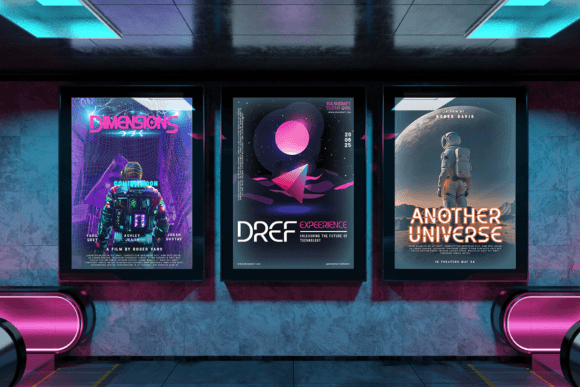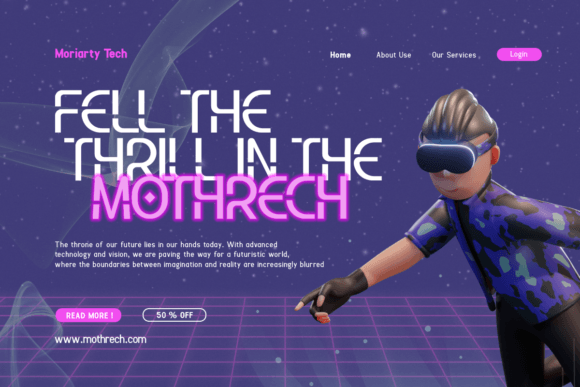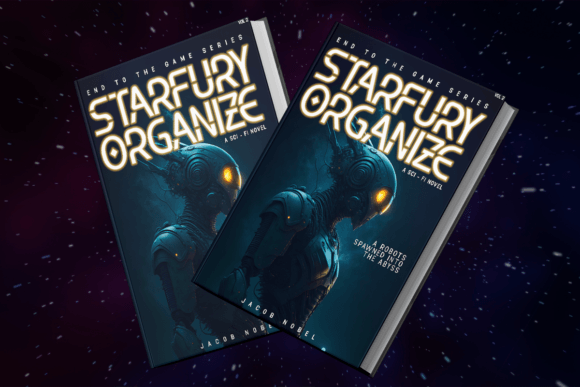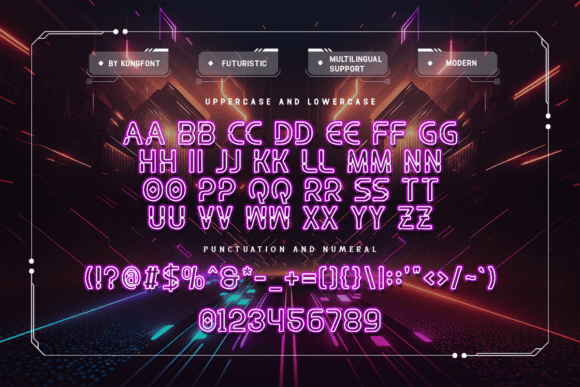
Introduction to Drivergun Font
Have you ever been working on a creative project and suddenly, the perfect font appears, making all the difference in its visual impact? That’s exactly what happened to me when I discovered the Drivergun Font. Its sleek, angular letterforms and dynamic style left me breathless, and I knew I had to share it with the design community.
As a designer, you’re always on the lookout for high-quality design resources that can elevate your work and make it stand out. That’s where the Drivergun Font comes in – a cutting-edge typeface that embodies the essence of modern technology and futuristic design. With its transparent background and free download option, it’s an ideal choice for designers who want to create striking headlines, logos, and visual content that demand attention.
Whether you’re working on a sci-fi poster, gaming graphics, or digital media project, the Drivergun Font is a valuable addition to your design toolkit. Its PUA encoded feature allows you to access all of the cute glyphs and swashes with ease, making it a versatile and powerful design resource.
Key Features of Drivergun Font
- High-quality, professional font designed for creative projects, perfect for use in logos, branding, and other design elements.
- Features a transparent background, allowing for easy layering and customization in various design applications.
- Includes a comprehensive set of glyphs, ensuring that users have access to a wide range of characters and symbols.
- Designed to be highly legible, even at small font sizes, making it ideal for use in digital and print applications.
Honest Review: Drivergun Font
I recently had the chance to work with the Drivergun Font for a creative project, and I must say, it’s been a great experience. The font is a high-quality design resource that can add a unique touch to any project.
- ✨ High-quality design: The font is crisp and clear, making it perfect for both digital and print projects.
- ⚠️ Limited font styles: While the font is high-quality, it’s limited to a few styles, which might not be suitable for projects that require a lot of variation.
Overall, I’m impressed with the Drivergun Font. It’s a great design resource that can add a unique touch to any project. While it has some limitations, it’s still a valuable addition to any designer’s toolkit.
The Drivergun Font is ideal for a range of creative projects, including:
- Logo design and branding.